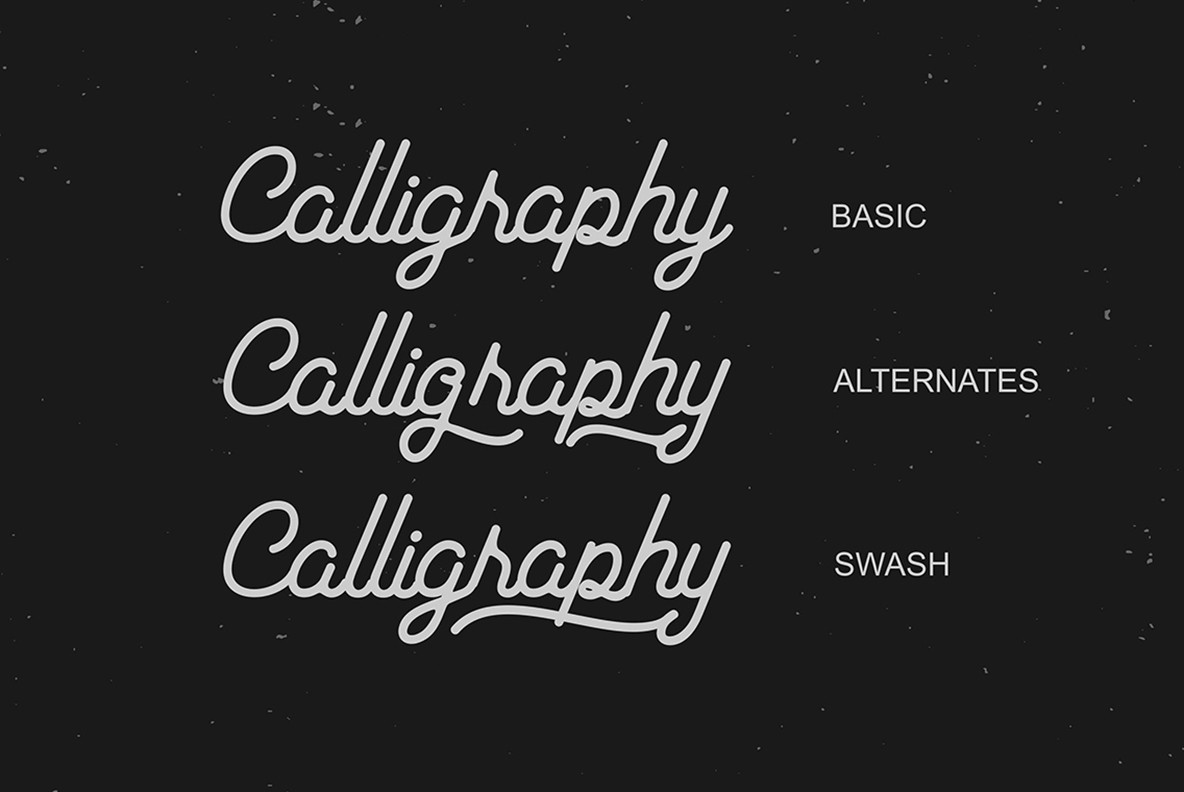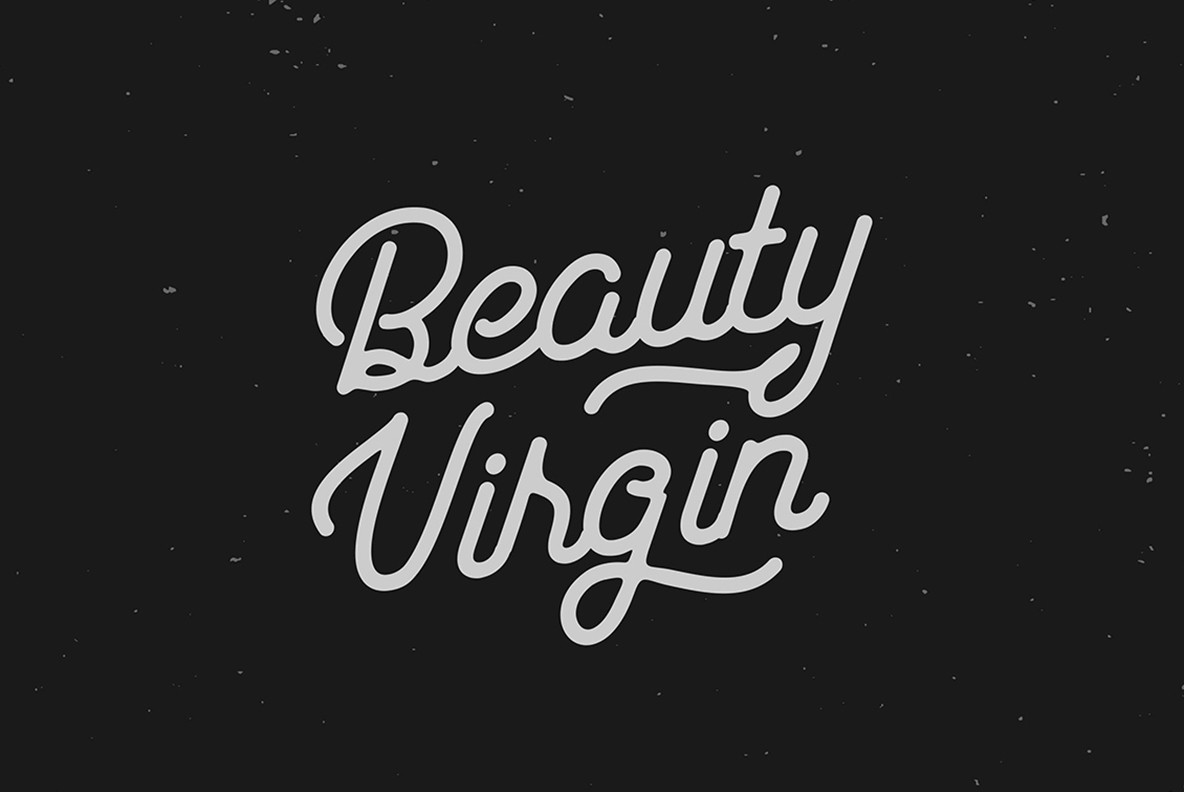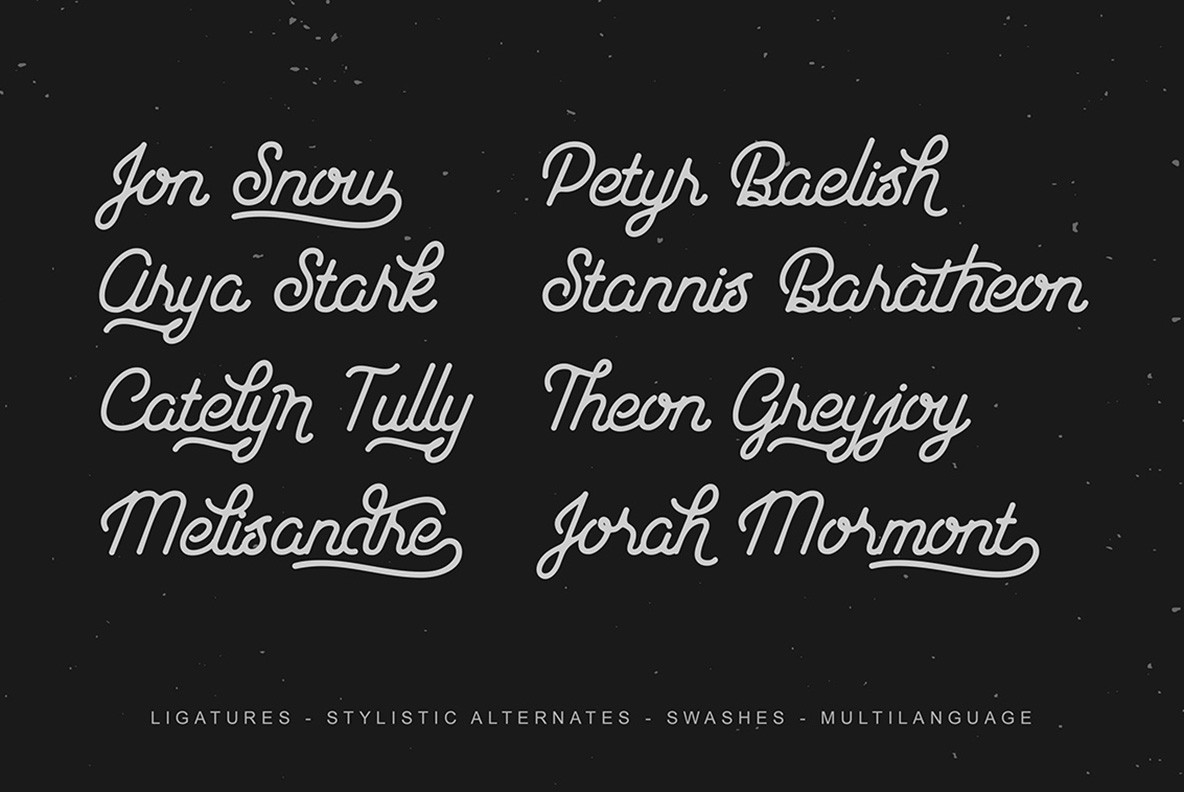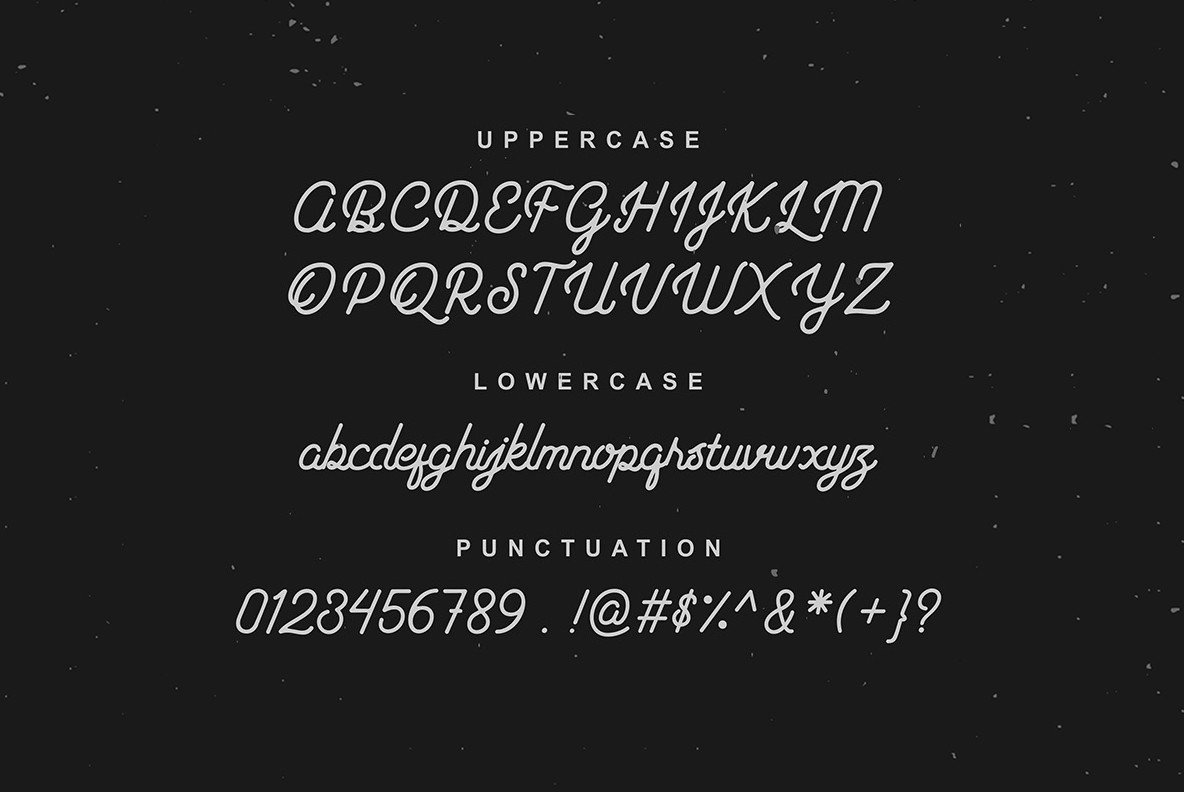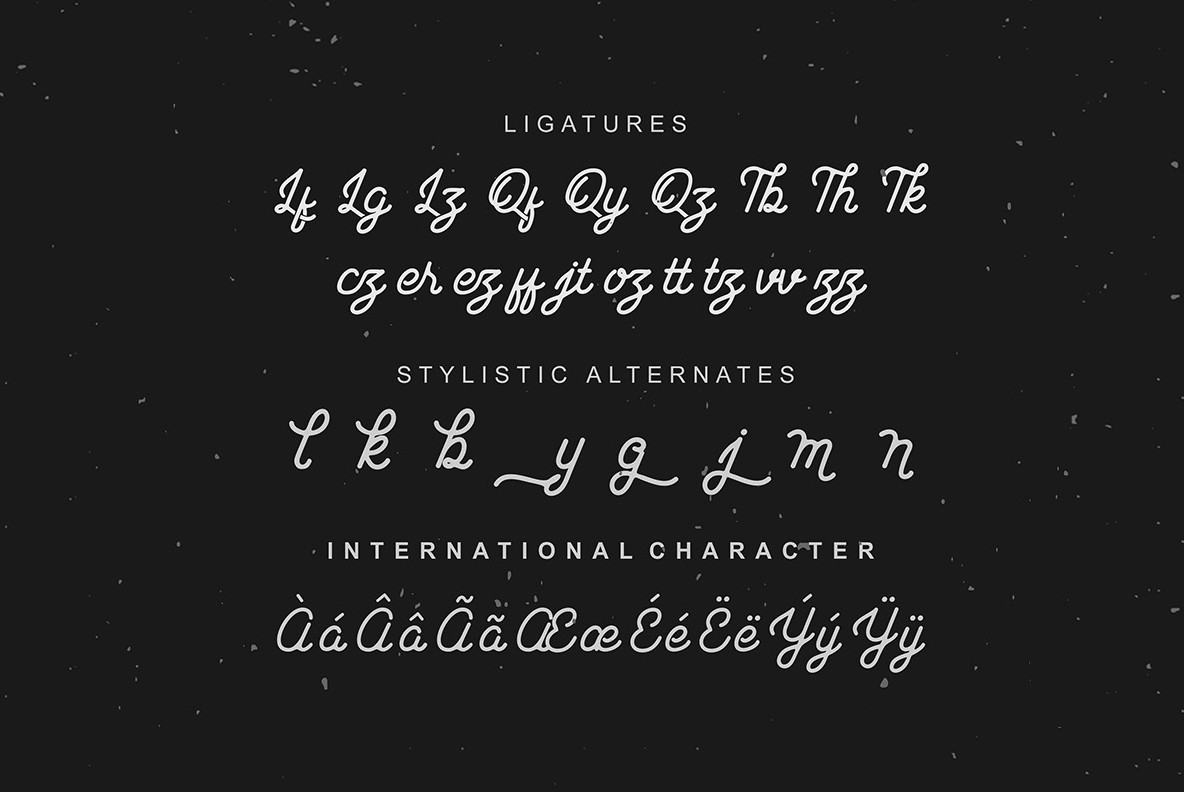
Hotline Font
Hotline
Hotline is a monoline script designed by Locomotype. Hotline contains opentype features such as ligatures, stylistic alternates, swashes and much more.